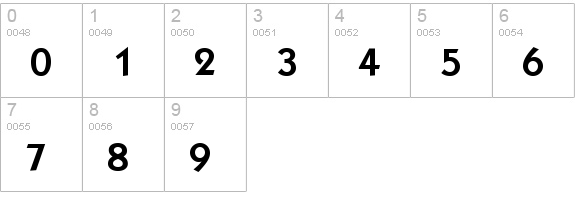
KabelEF-Demi Font Details
KabelEF-Demi is a sub-bold, structured variant in the KabelEF typeface family \xE2\x80\x94 well suited to sub-headlines and emphasised passages.
KabelEF-Demi font is a stunning display typeface that exudes elegance and sophistication. With its bold and commanding presence, this font is perfect for creating eye-catching headlines, logos, and branding materials. The clean and geometric lines of KabelEF-Demi font give it a modern and timeless appeal, making it suitable for a wide range of design projects. One of the standout features of KabelEF-Demi font is its versatility. It can effortlessly adapt to both digital and print mediums, ensuring that your message is conveyed with clarity and impact. Whether you are designing a website, a magazine layout, or a poster, this font will make your content stand out from the crowd. One of the best things about KabelEF-Demi font is that it is available for free. You can easily download it from FontsMarket.com, a trusted source for high-quality fonts. This means that you can use this beautiful typeface in your personal and commercial projects without any restrictions. The fact that KabelEF-Demi font is freely available makes it an excellent choice for designers and creatives on a budget. So, if you are looking for a font that combines elegance, versatility, and affordability, look no further than KabelEF-Demi font. With its bold and commanding presence, this font will elevate your designs and leave a lasting impression on your audience. Don't miss out on the opportunity to download KabelEF-Demi font for free at FontsMarket.com and start creating stunning visuals today.